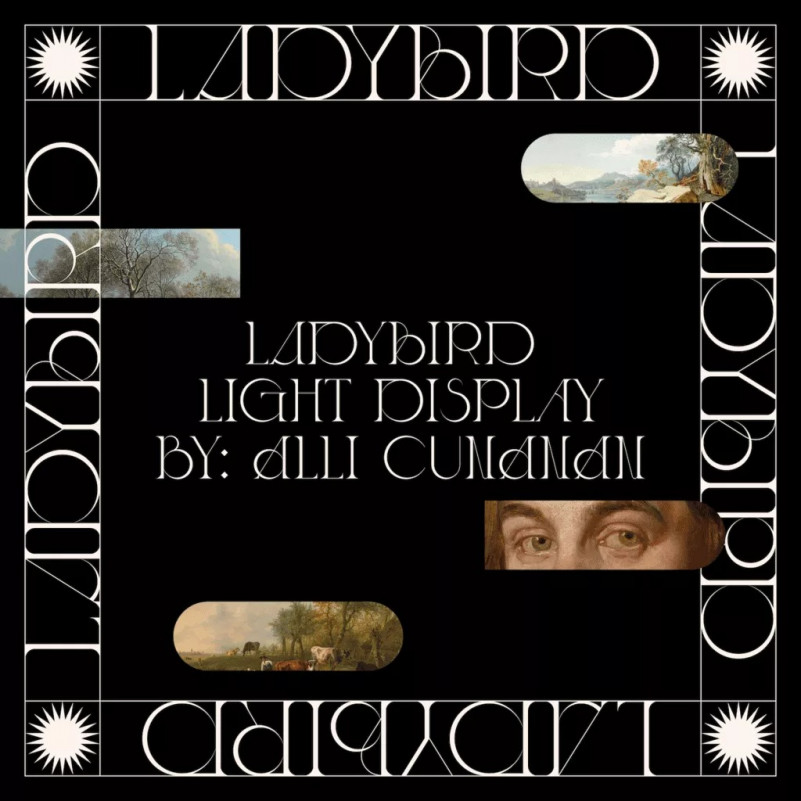
Ladybird Light Font
Proudly present Ladybird Light Serif Font is a delicate serif font inspired by the elegance of Irish Actor, Saoirse Ronan. Designed with beautiful contrasts and stylistic alternates, this new font has tons of potential and is hypnotic to use.
Ladybird’s stunning hairlines merge with wide open counters and a soft, rhythmic finish to create a timeless sense of sophistication whilst remaining sharp and contemporary. This typeface would look incredible in branding settings, refined editorial layouts, or pretty much anywhere you can think of!